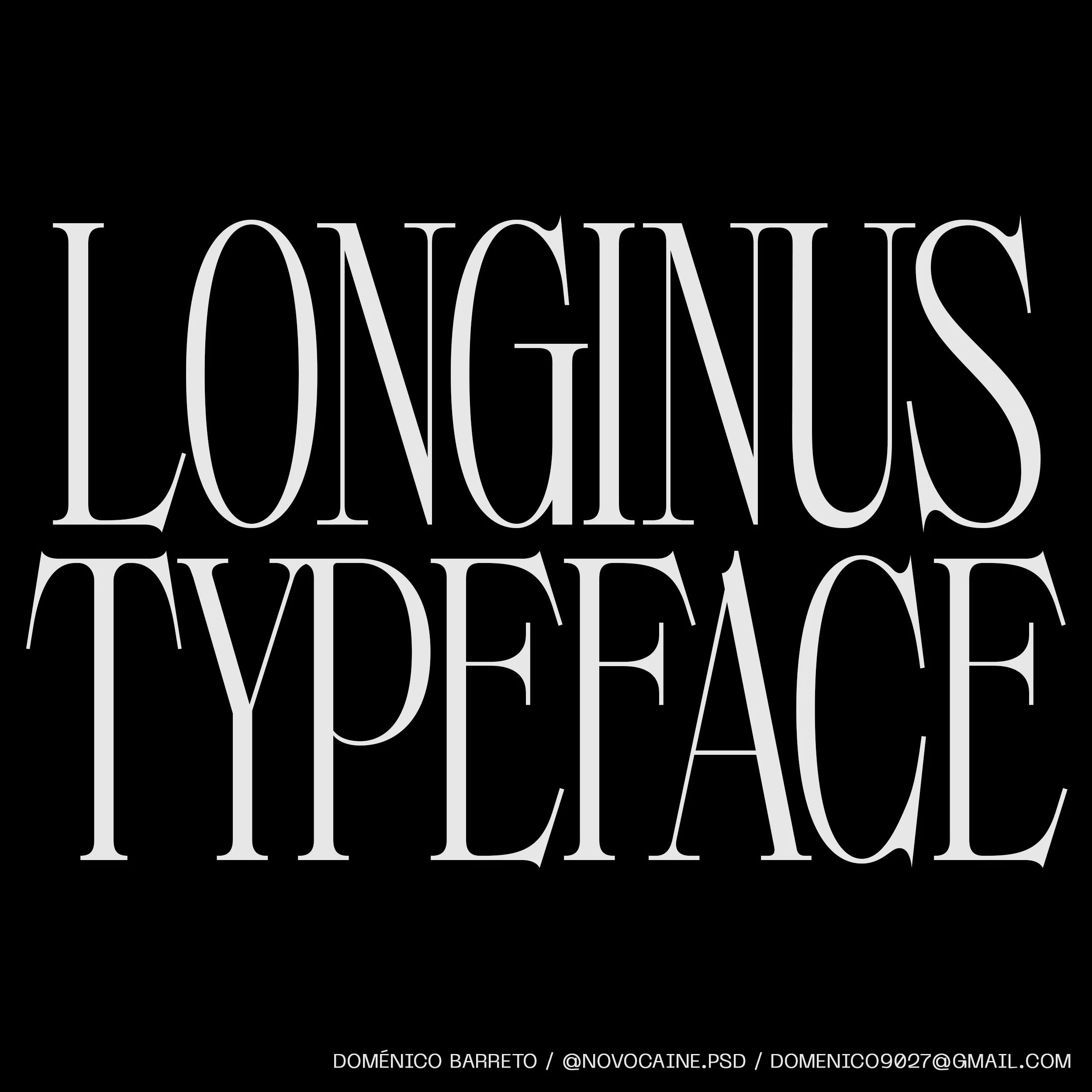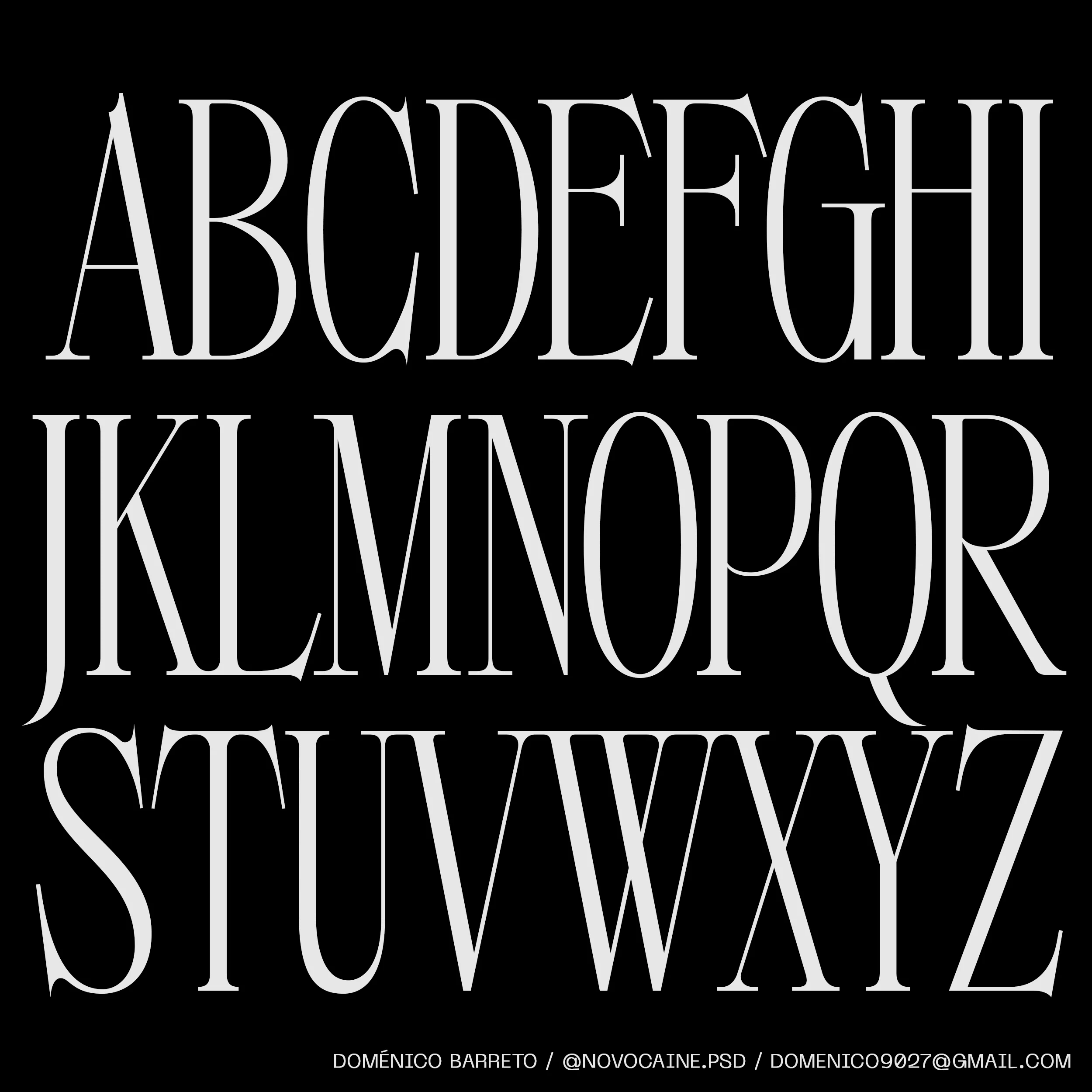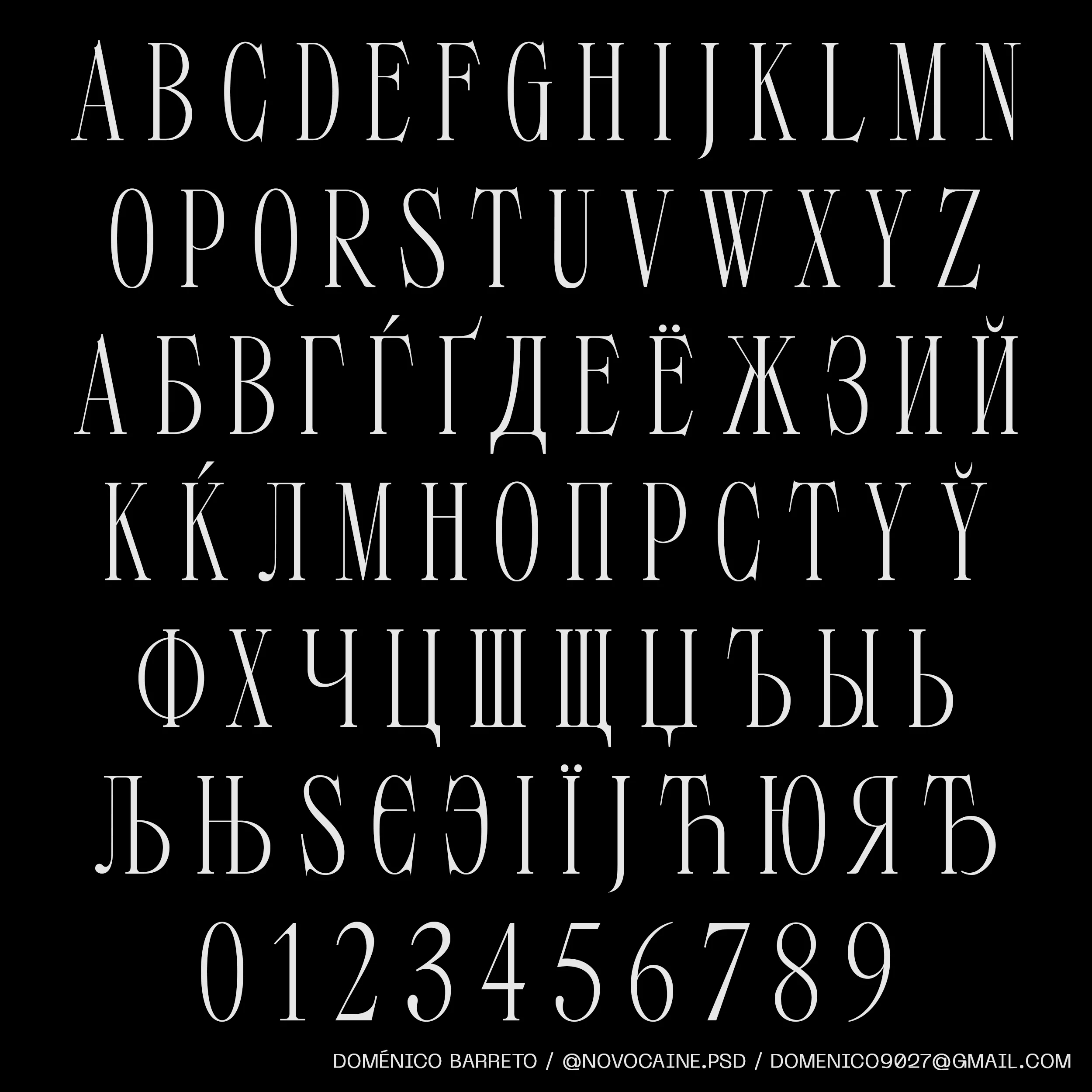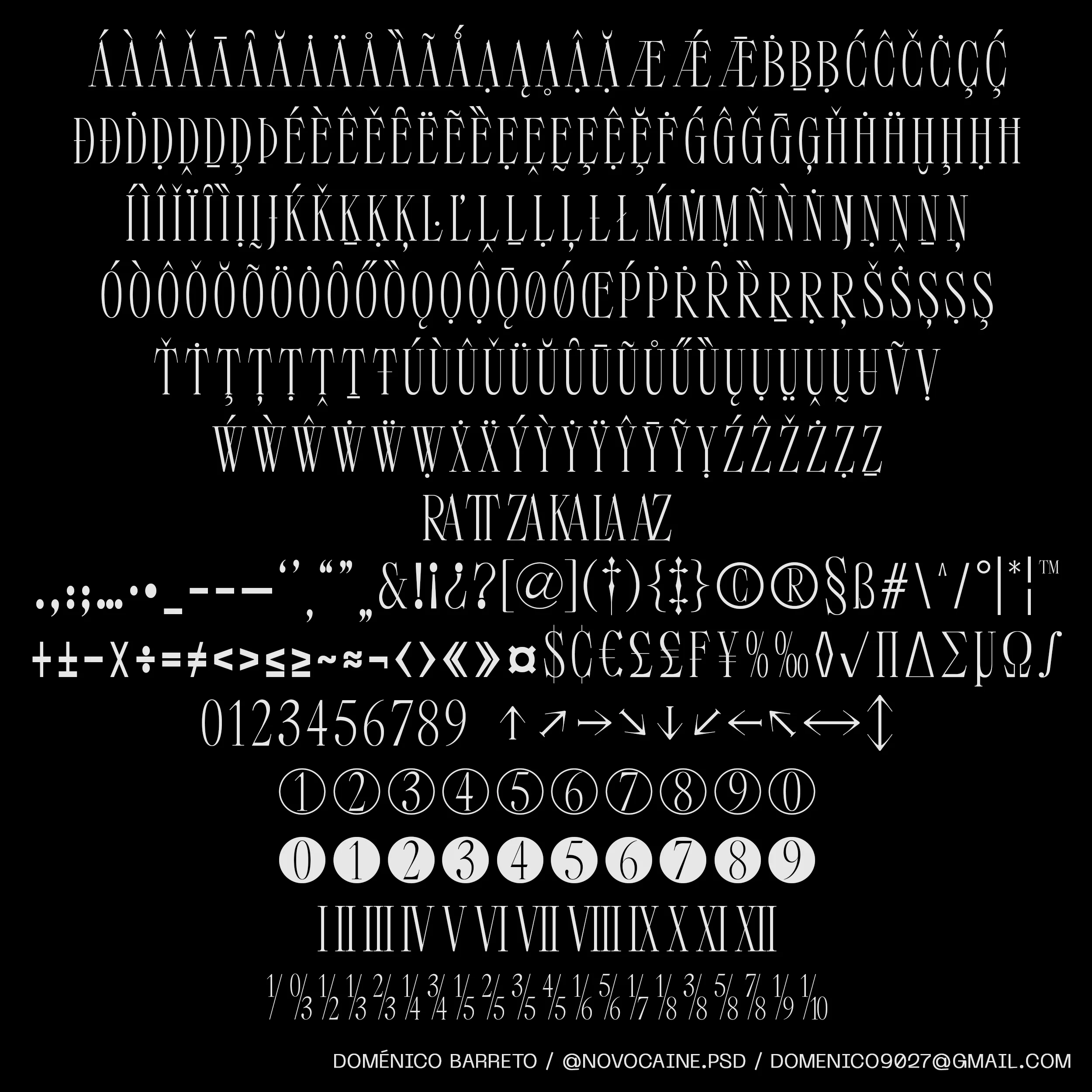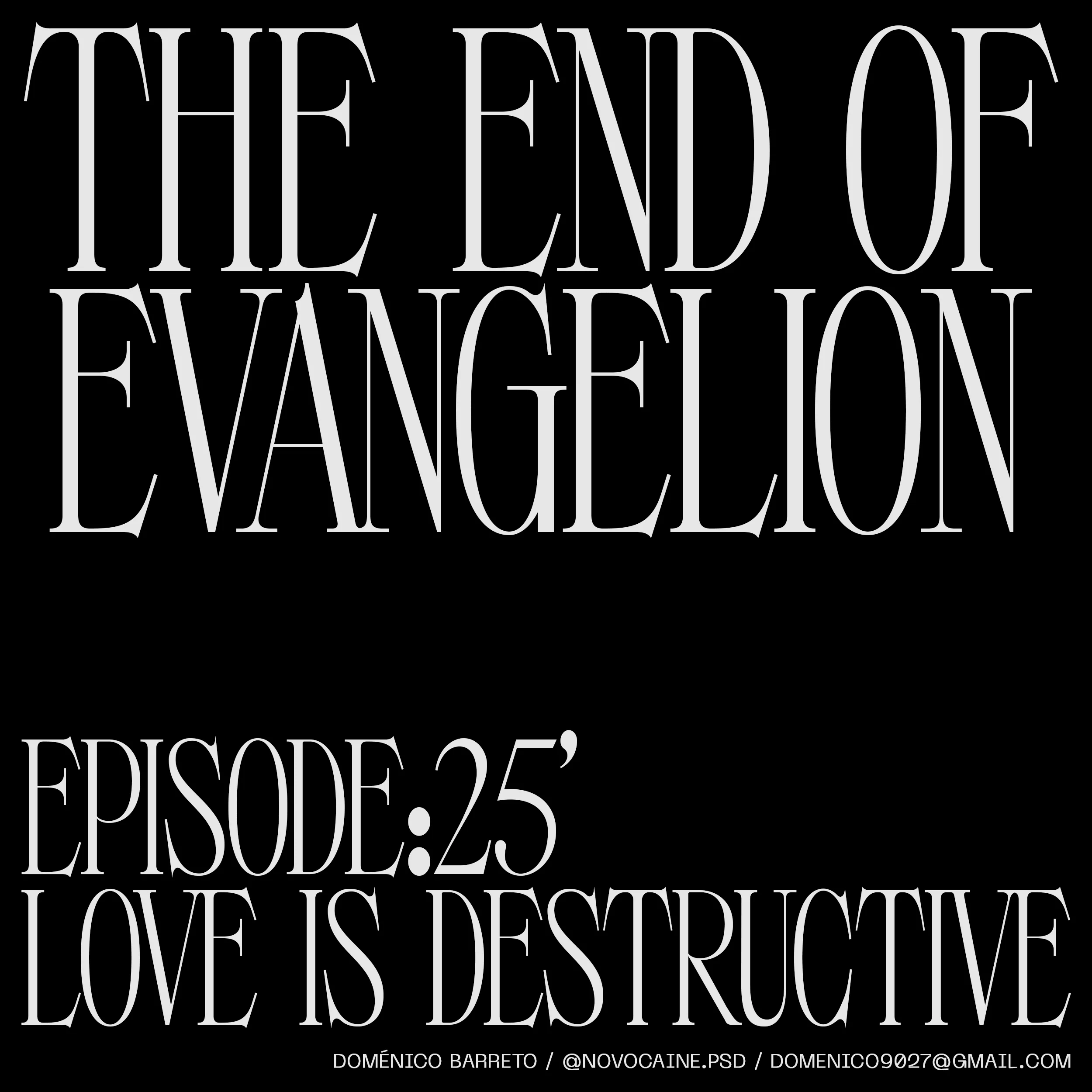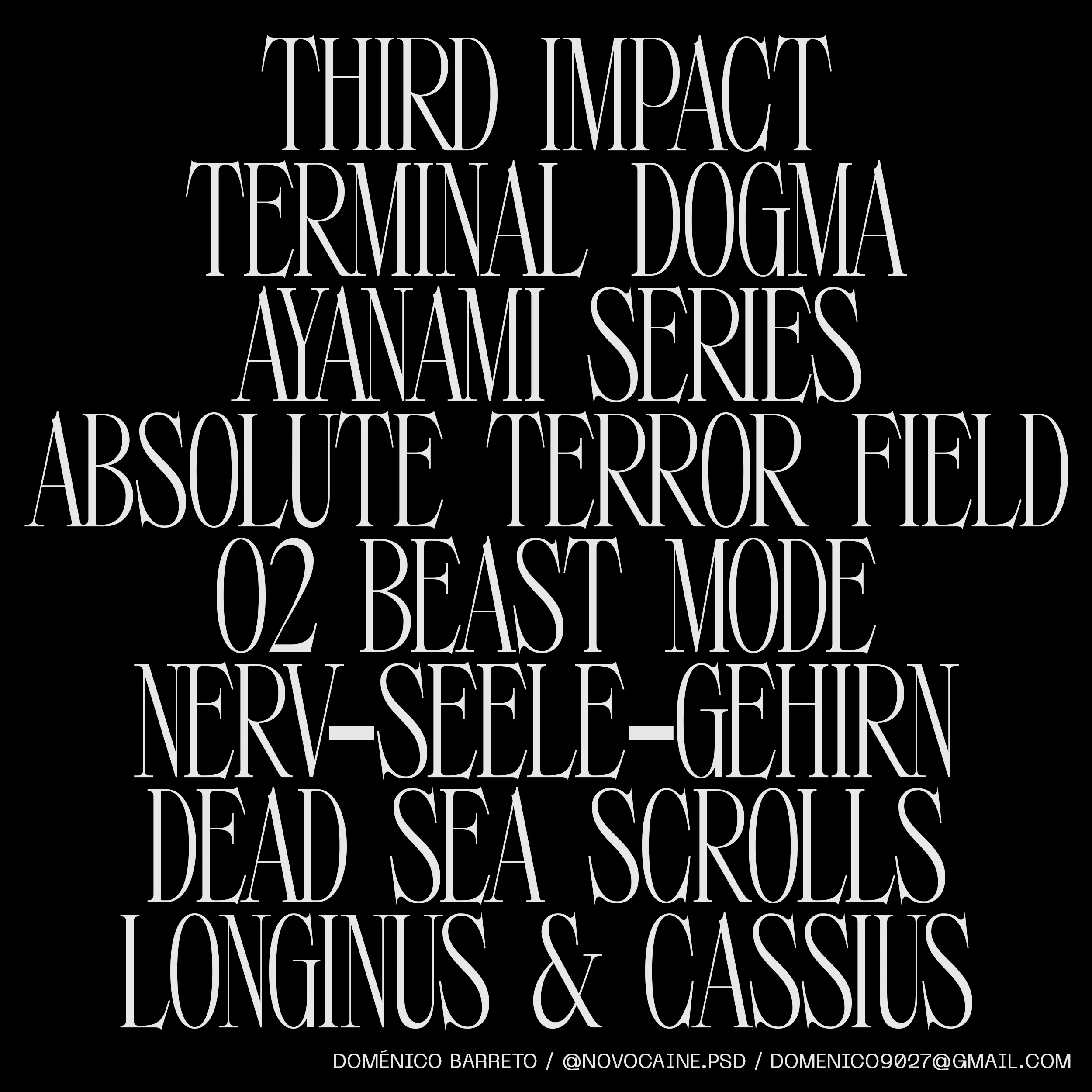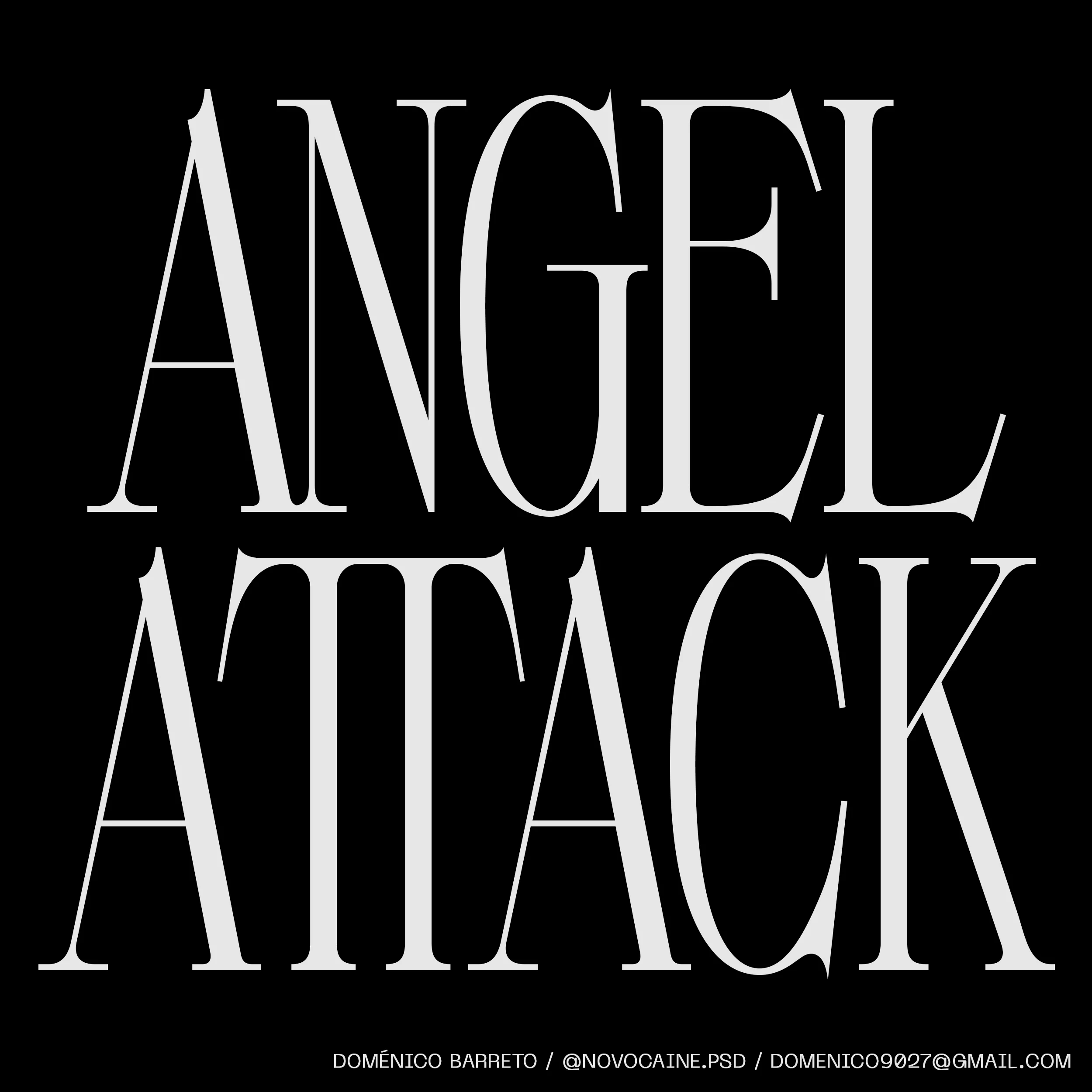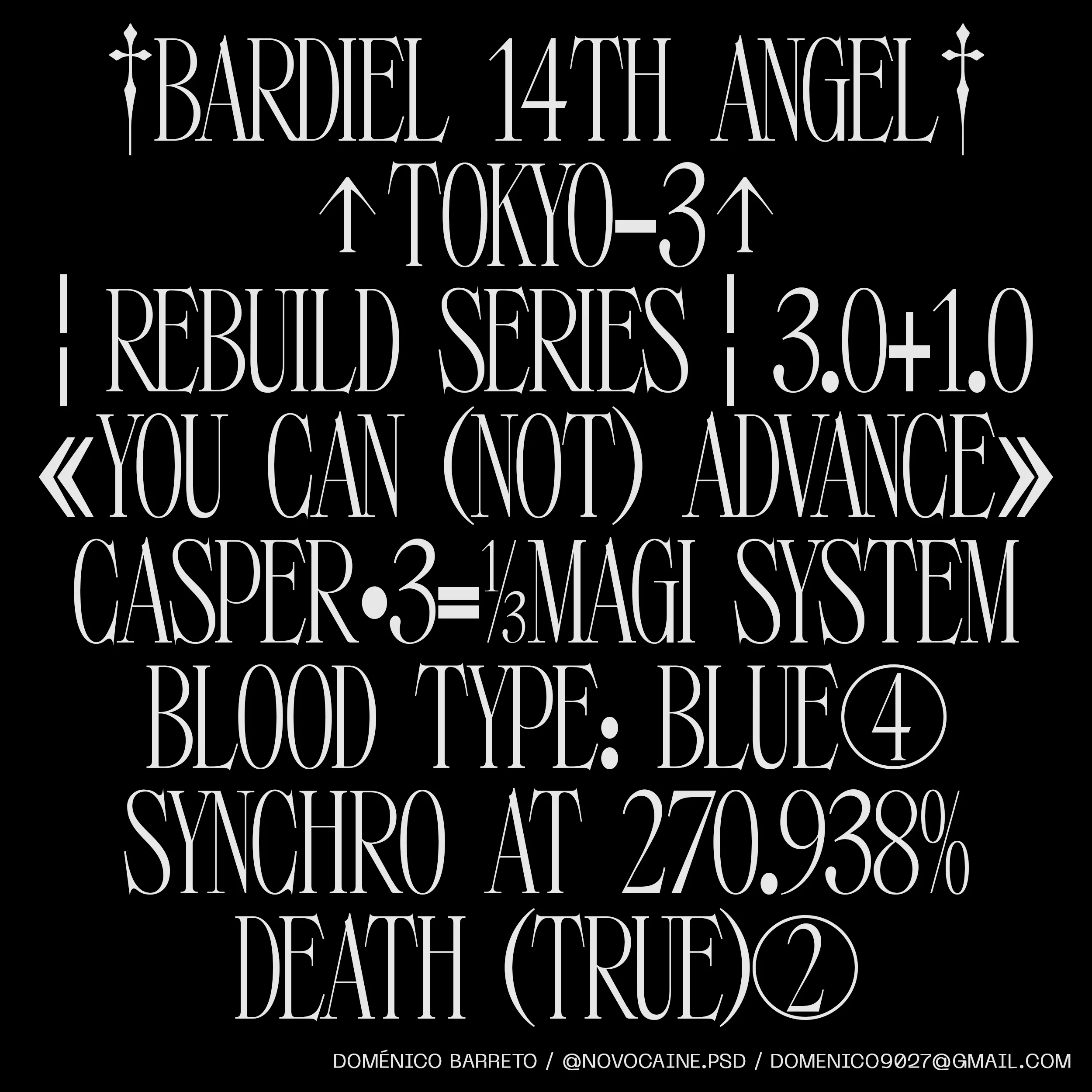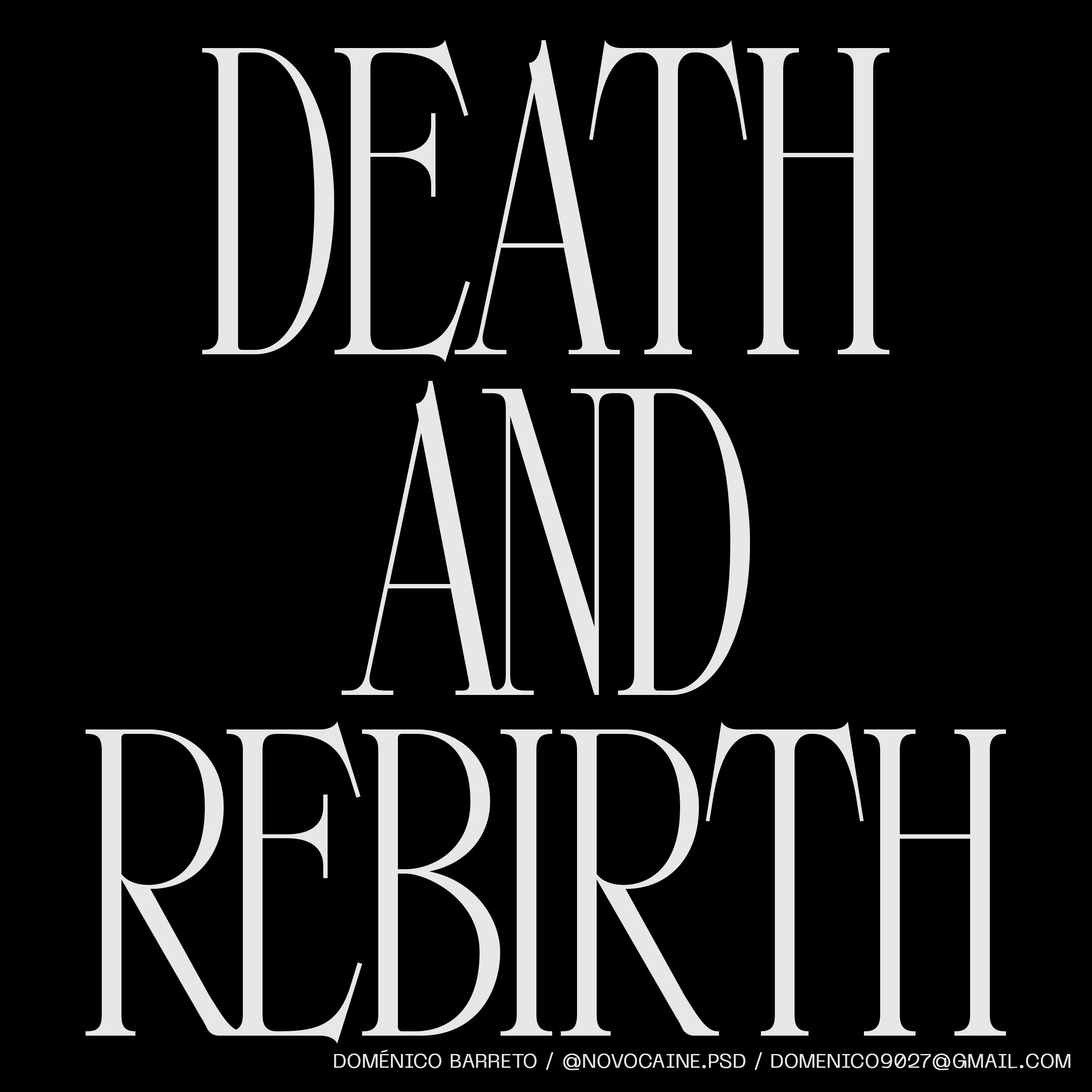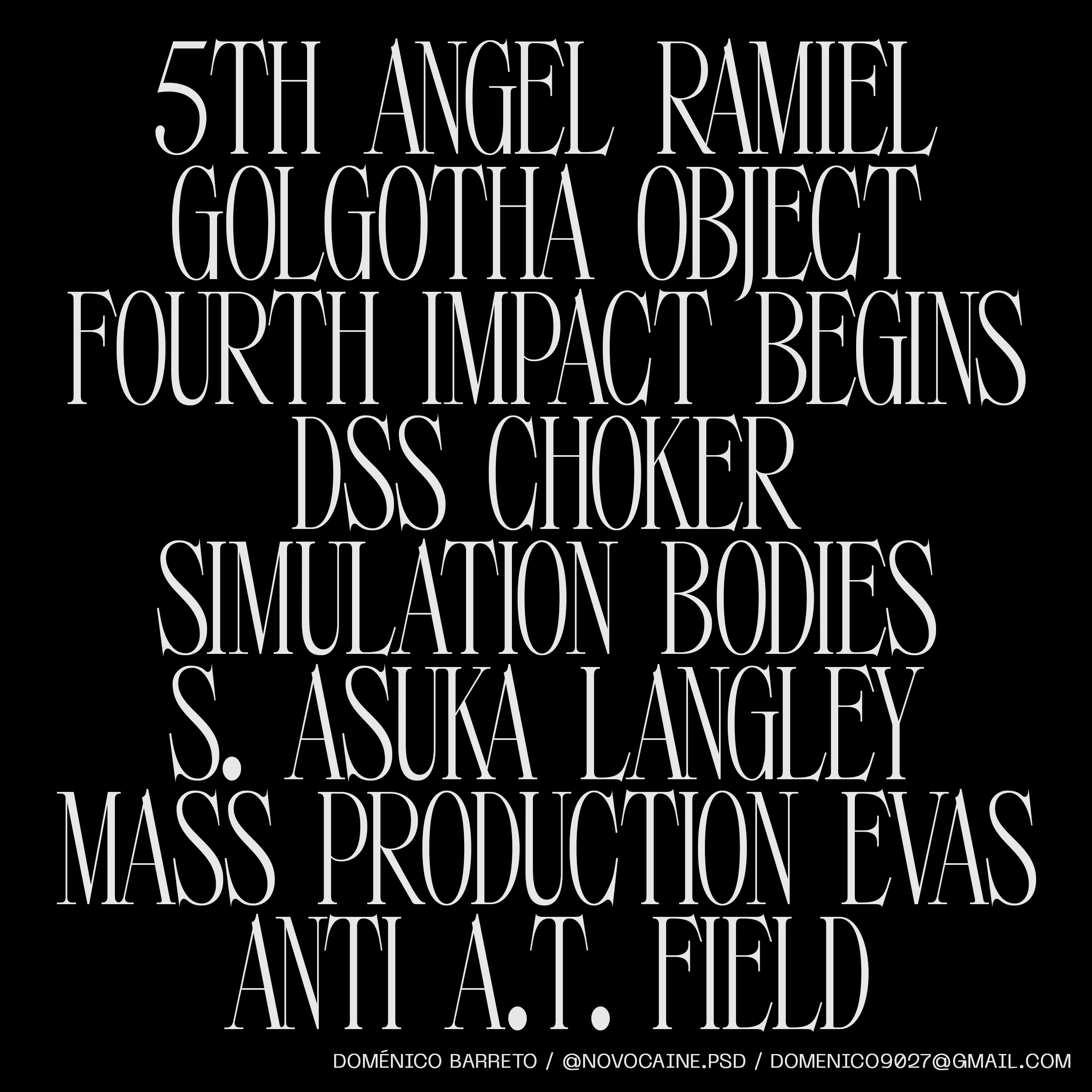
Longinus
Longinus is an uppercase display typeface that pays homage to the iconic anime series Neon Genesis Evangelion. Drawing inspiration from its impactful intro sequences and enduring title cards, Longinus captures the essence of elegance and attitude.
Designed for logos and impactful titles, Longinus stands out with its sleek and sophisticated letterforms. The typeface blends modern aesthetics with a nod to the futuristic and dramatic themes of the anime. Its clean lines and bold presence make it ideal for commanding attention in any design application.